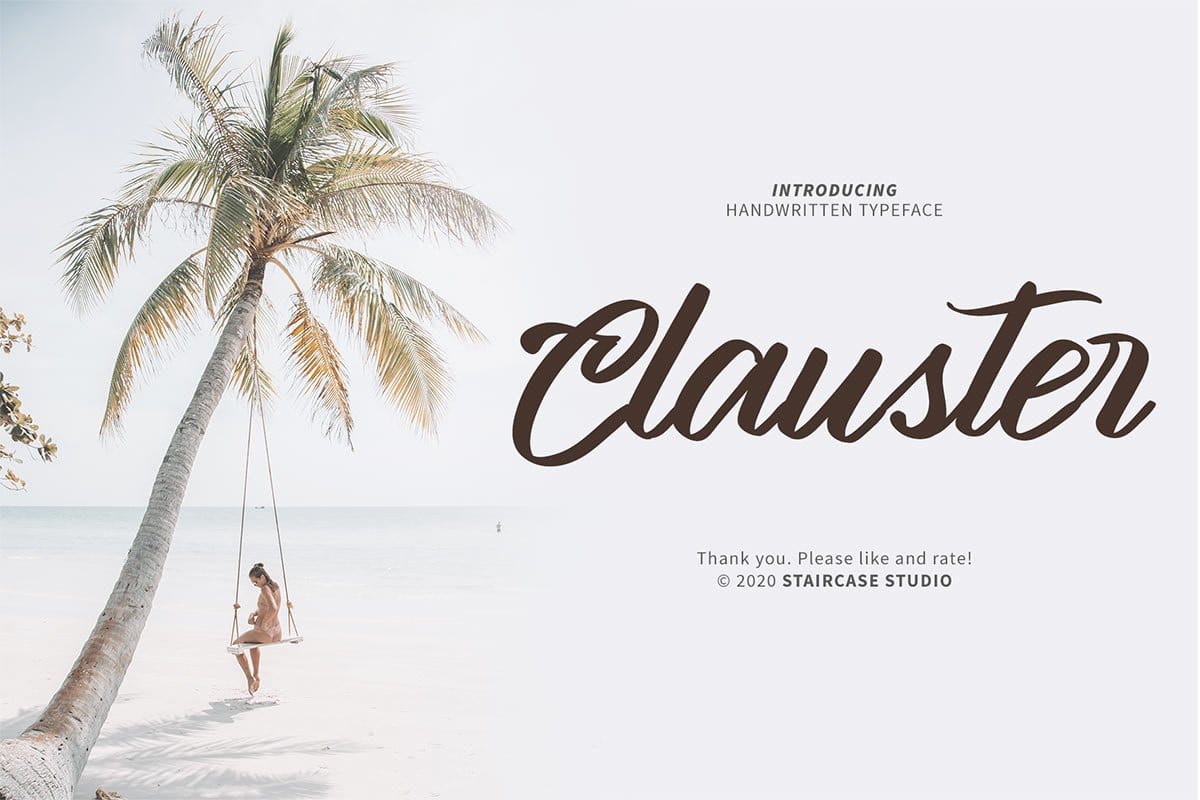
Clauster Font is a script type, with natural script curves and smooth lines. It has 2 additional styles, Regular and Italic. Clauster Font ideal for logos, handwritten quotes, product packaging, headers, posters, merchandise, social media, greeting cards, magazines, banners, etc.